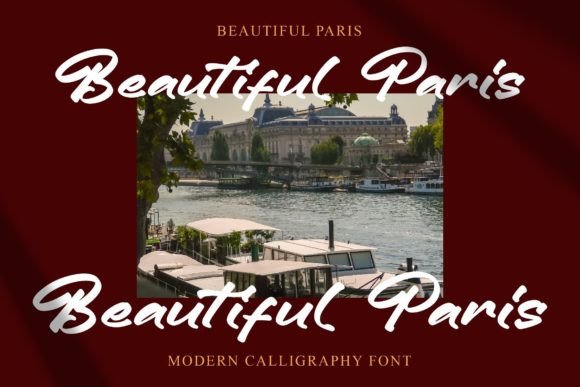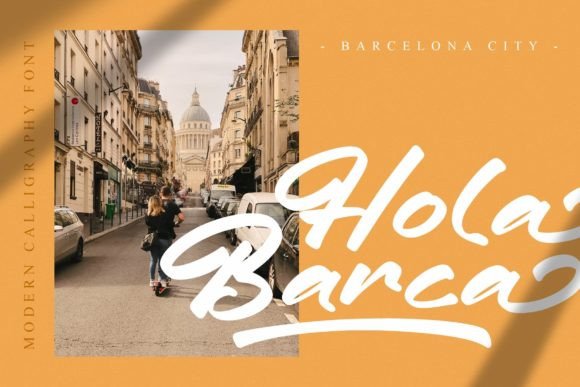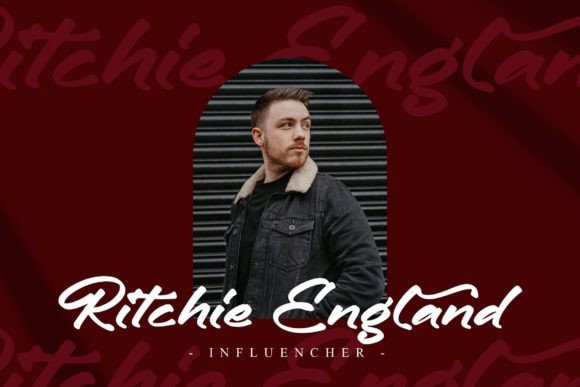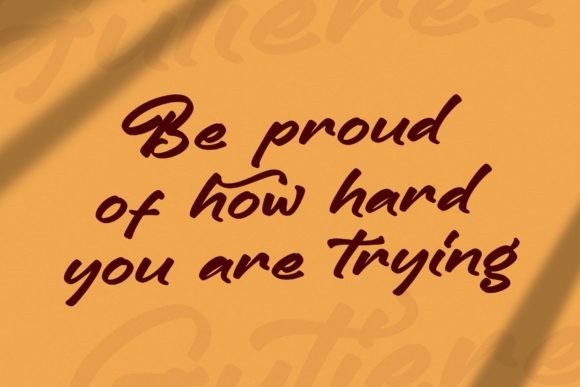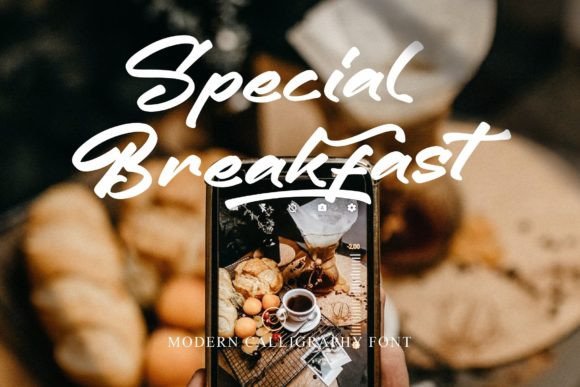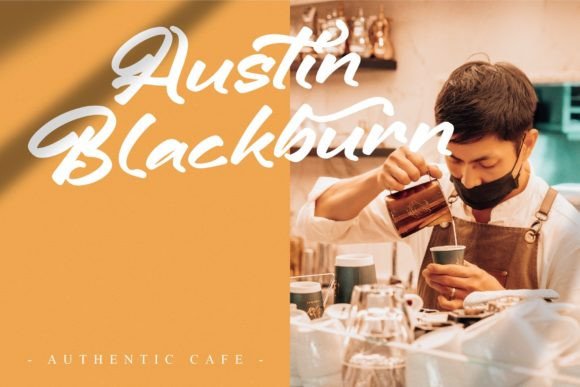
Introduction to Gutierez Font
Gutierez is a new modern script calligraphy typeface with its own unique flow and elegant personality.
Is suitable for all your design project needs such as logo design, branding, covers, posters, and more .
Key Features of Gutierez Font